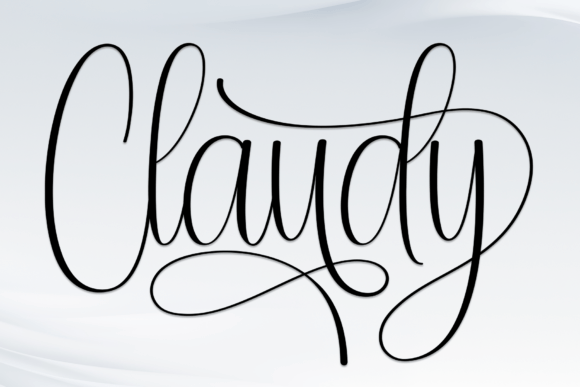
Dive into the world of handwritten elegance with Claudy Font, a charming script font that exudes warmth and personality. Crafted by the talented William Jhorde, Claudy is a symphony of playful strokes and delicate curves that will add a touch of whimsy to any design.
With its effortless flow, Claudy is the perfect choice for creating captivating wedding invitations, heartfelt cards, enchanting posters, and even eye-catching logos. Its versatility extends to social media graphics, product packaging, and any project that requires a touch of handwritten charm.
Claudy's remarkable legibility, even at larger sizes, ensures that your messages will be conveyed with clarity and impact. Its distinct character and unique charm make it a standout choice for those seeking a font that speaks to the heart.
Immerse yourself in a world of creative possibilities with Claudy Font. Let its graceful strokes dance across your designs, capturing attention and leaving a lasting impression. Whether you're a seasoned designer or just starting your creative journey, Claudy is the perfect companion to bring your vision to life.